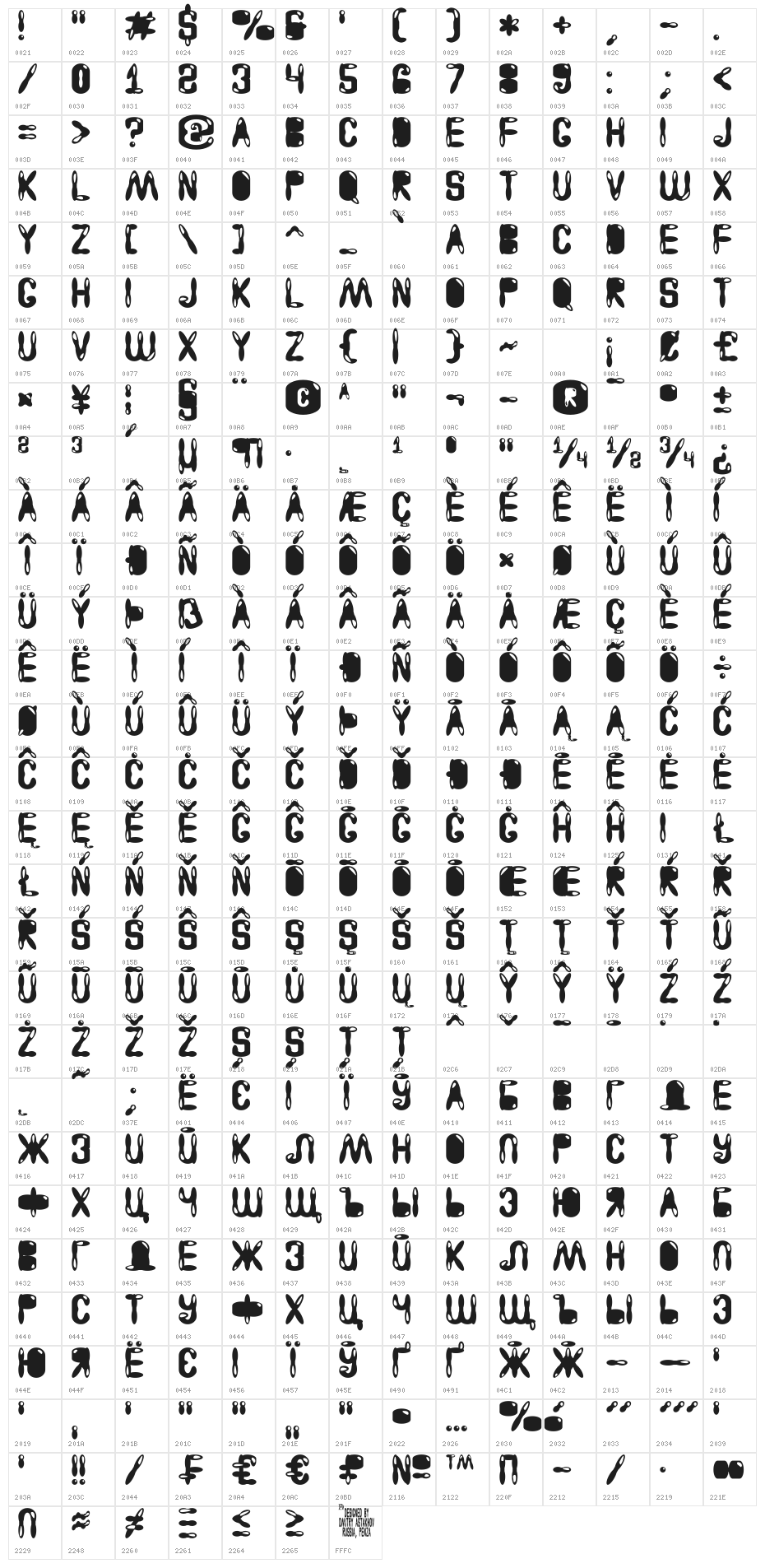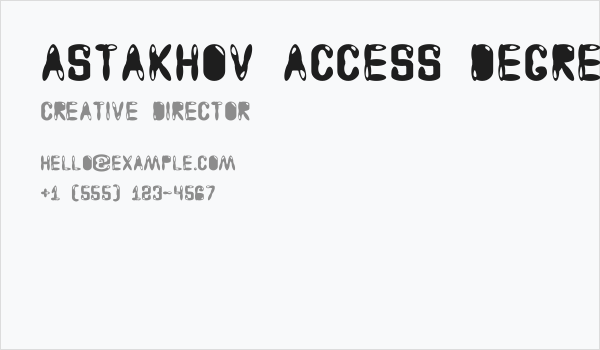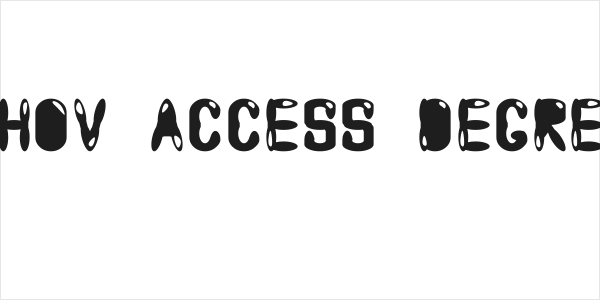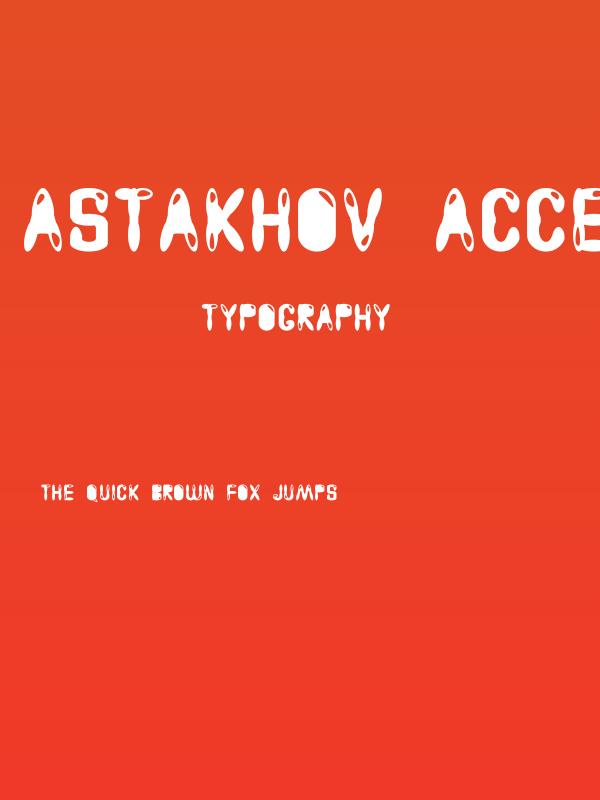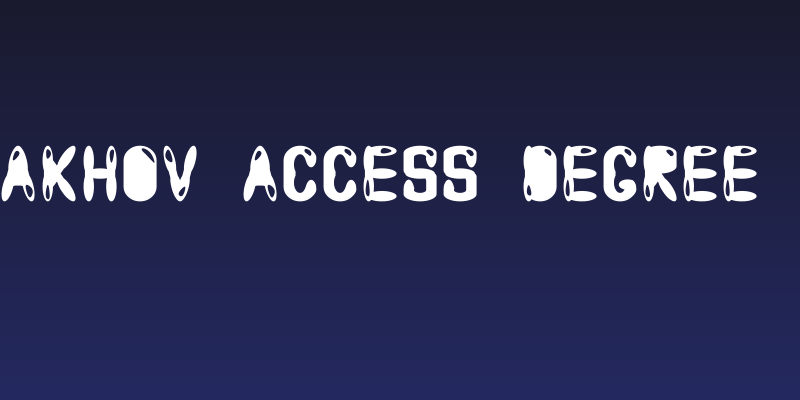
Astakhov Access Degree AGF Font
Astakhov Access Degree AGF Description
This font features a bold and playful design with a unique, organic appearance. The characters are rounded and have irregular, blob-like shapes that give them a fluid and dynamic feel. The font's style is reminiscent of liquid or melting forms, making it stand out with its artistic and unconventional look. It maintains a consistent thickness throughout, contributing to its bold presence. The characters are closely spaced, enhancing the compact and cohesive appearance of the text. This font is ideal for creative projects that require a distinctive and eye-catching typeface.
| Proposed Projects | Ideal for creative projects such as posters, album covers, branding for artistic ventures, or any design that seeks to capture attention with a unique and playful aesthetic. |